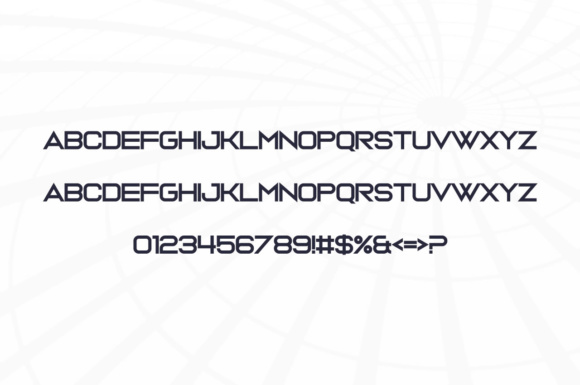
Introduction to Ava Meridian Font
Give your designs a edge with this sharp and classy display font.
Key Features of Ava Meridian Font
Why Choose Ava Meridian Font?
Ava Meridian Font offers exceptional quality and versatility, making it a valuable addition to your design toolkit. Whether you’re creating for personal projects or commercial use, Ava Meridian Font delivers professional results.